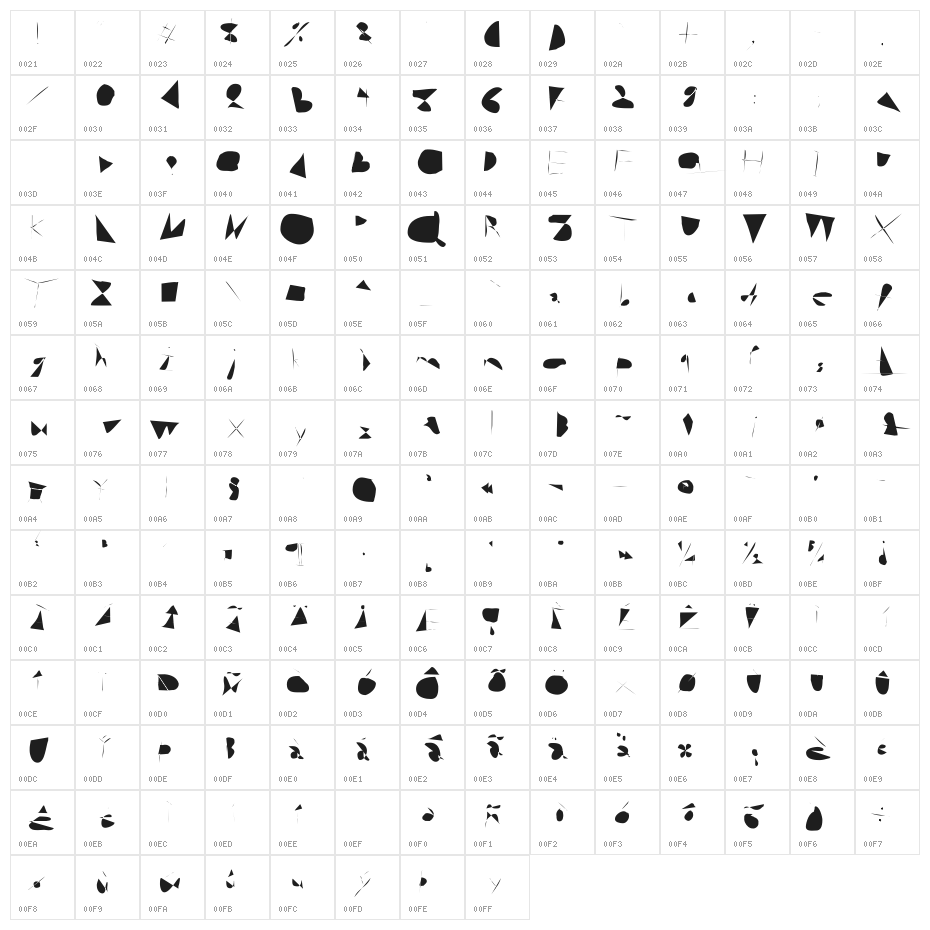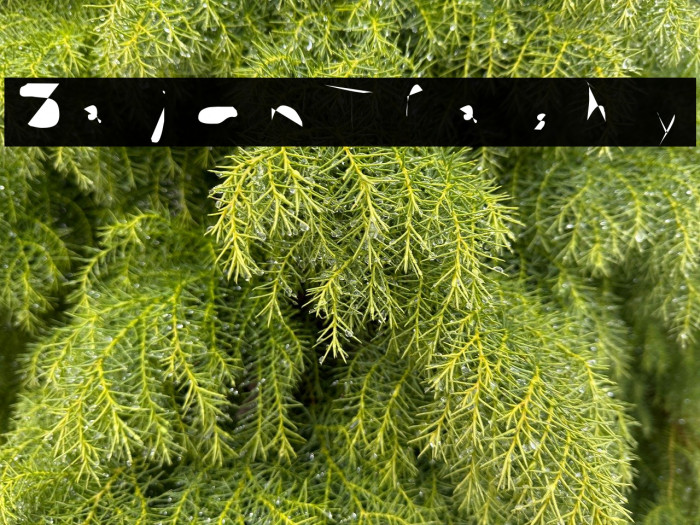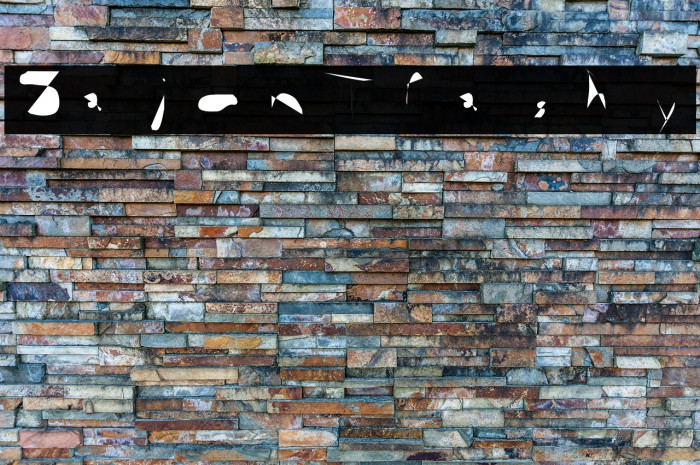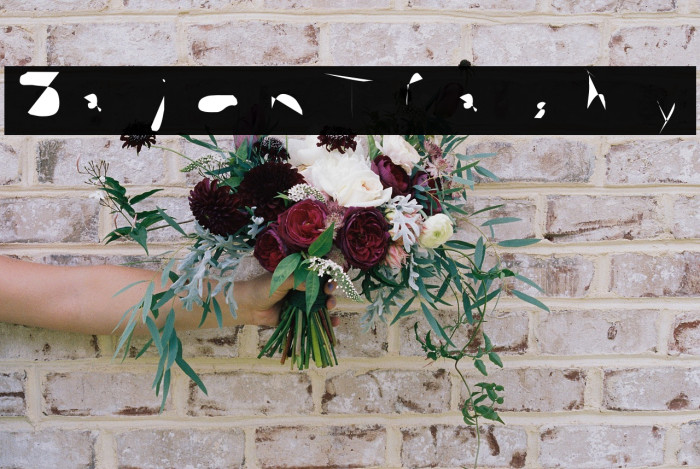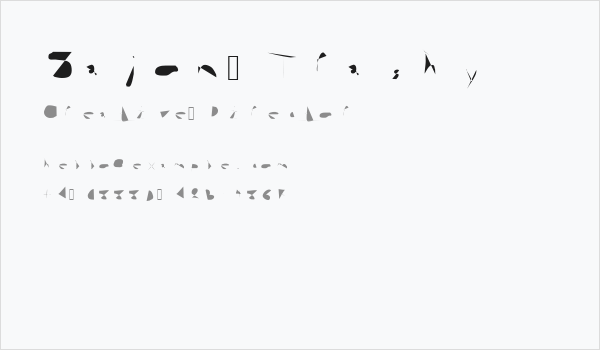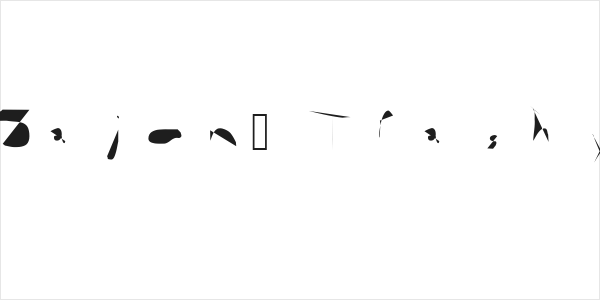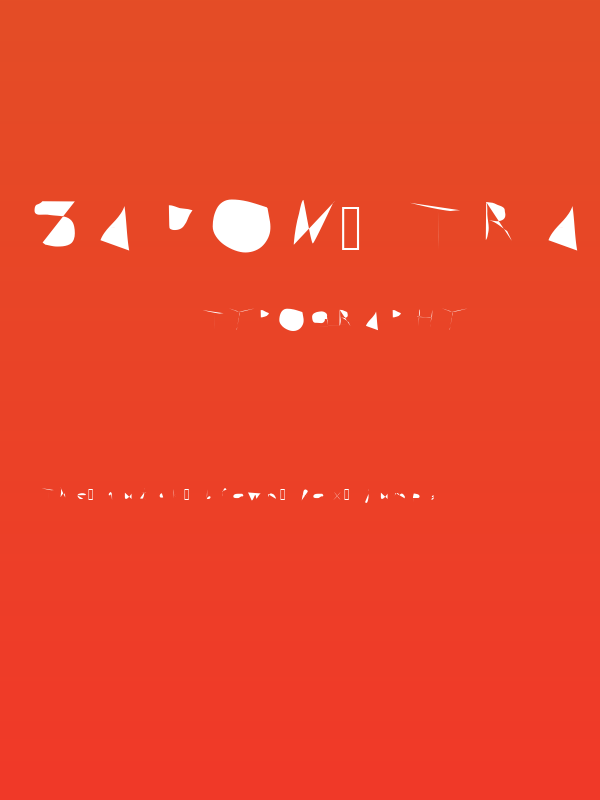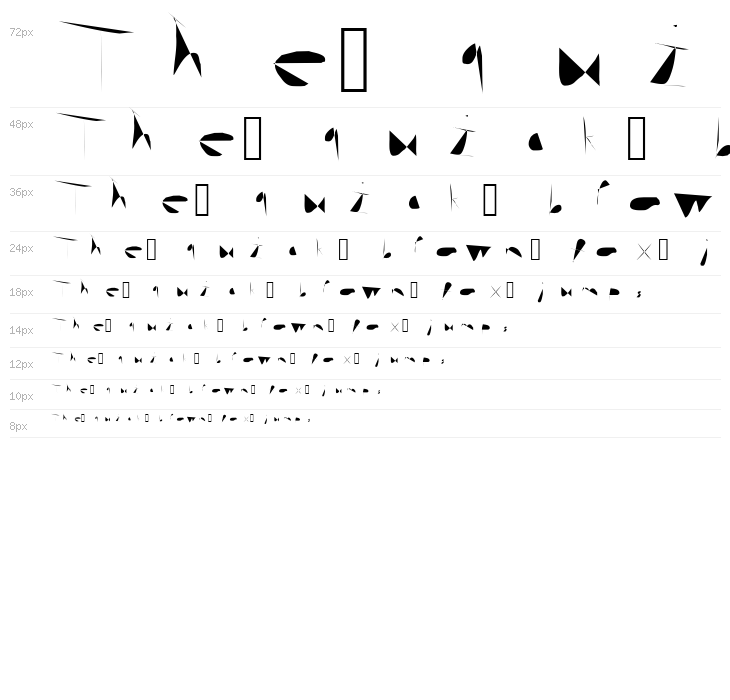
Sajon Trashy Font
Sajon Trashy Description
This font presents a highly abstract and fragmented style, characterized by its sharp angles and irregular shapes. Each letterform appears to be deconstructed, with parts missing or exaggerated, creating a sense of chaos and unpredictability. The uppercase and lowercase letters maintain this disjointed appearance, making the font visually striking and unconventional. The numbers and special characters follow the same design principles, adding to the overall theme of disruption. This font is not intended for readability but rather for artistic expression, making it suitable for projects that aim to challenge traditional design norms.
| Overall Style | Modern, Abstract |
| Use Case | Artistic projects, Experimental design |
| Proposed Projects | Ideal for avant-garde art projects, experimental design, album covers, or any creative work that seeks to challenge conventional aesthetics. |